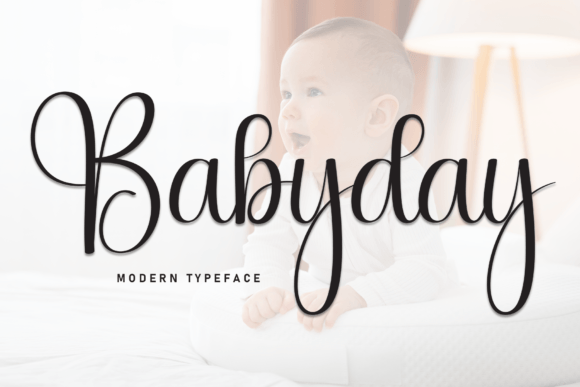
Adding a Dash of Whimsy to Your Designs
Have you ever been stuck in a creative rut, searching for the perfect font to elevate your design project? You know the feeling – the blank page staring back at you, waiting for that magical spark to ignite your imagination. For designers like you, the perfect font can be the game-changer that transforms a project from ordinary to extraordinary.
Enter the delightful Babyday Font, a charming and playful typeface that exudes a sweet and friendly vibe. Whether you’re designing wedding invitations, greeting cards, or any other project that requires a dash of fun, this font is sure to bring a smile to your face and a personal touch to your work. With its undeniable cuteness, Babyday Font is a valuable addition to any designer’s toolkit.
By incorporating Babyday Font into your designs, you’ll be able to craft unique and memorable projects that reflect your personality and style. So why settle for a generic font when you can add a pinch of whimsy and personality to your work with the lovable Babyday Font?
Babyday Font Key Features
- Font Style: Babyday Font is a cute and playful script font, ideal for baby-related designs, children’s products, and other creative projects.
- Unique Characteristics: Babyday Font features unique, hand-drawn elements and flourishes, adding a personal touch to designs and setting it apart from other fonts.
Babyday Font Review
At first glance, Babyday Font appears to be a cute and playful font, perfect for designing children’s products or nursery decorations. ✨ The rounded edges and soft lines evoke a sense of warmth and friendliness.
- ✨ The font is highly customizable, with various styles and weights available, making it suitable for a range of applications.
- ✨ The font is highly legible, even at smaller sizes, which is essential for designing products that require clear text.
However, there are some limitations to consider: ⚠️ The font may be too cute for some designers, and it may not be suitable for more professional or corporate projects.
- ⚠️ The font may not be suitable for all languages, as it was designed with English in mind.
- ⚠️ The font may not be as versatile as other fonts, limiting its use in certain design projects.
Overall, Babyday Font is a solid choice for designers who need a playful and child-friendly font. While it may not be the most versatile option, it’s perfect for projects that require a cute and approachable aesthetic.
For optimal results, use the Babyday Font for designs related to children, nursery rhymes, or baby-themed products.
Use the Babyday Font in combination with other playful fonts to create a unique and eye-catching design.
Alternatives to Babyday Font
Lato is a clean and modern sans-serif font designed by Łukasz Dziedzic. It’s perfect for use in headings, titles, and body text where a clear and readable font is required. Lato has a similar feel to Babyday Font but with a more neutral and versatile look.
Comparison to Babyday Font: Lato is more straightforward and lacks the playful feel of Babyday Font, making it a better choice for formal and professional designs.
Great Vibes is a modern sans-serif font designed by Pablo Impallari and Rodrigo Fuenzalida. It’s ideal for use in creative projects, such as logos, branding, and advertising, where a fun and energetic feel is desired. Great Vibes has a similar playful feel to Babyday Font but with a more dynamic and expressive look.
Comparison to Babyday Font: Great Vibes is more energetic and dynamic, making it a better choice for projects that require a bold and attention-grabbing font.